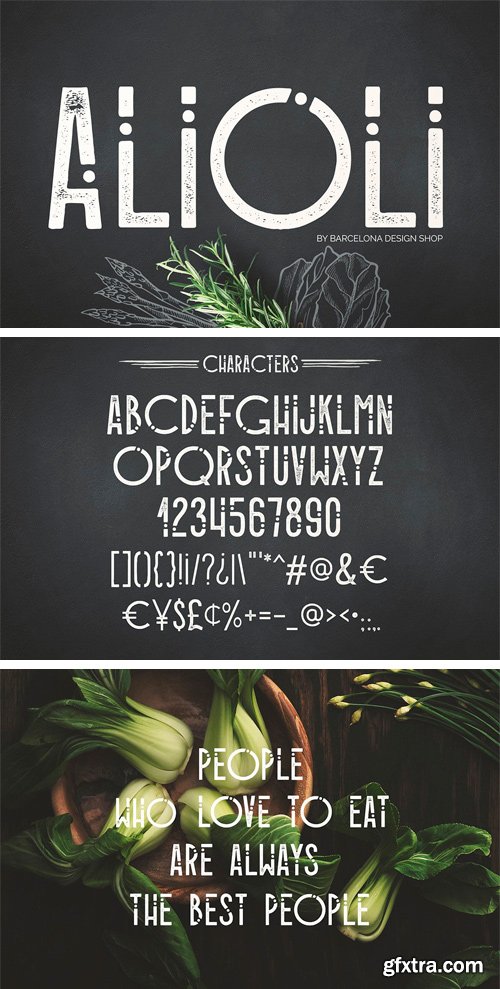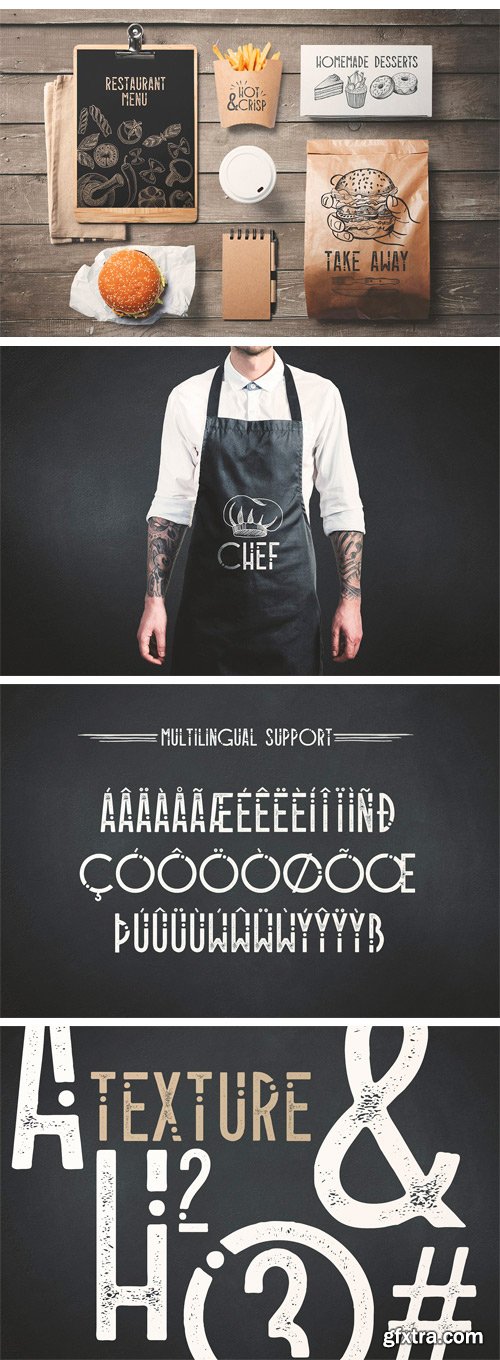
CM - Alioli - Texture Geometric Font 2113418
Alioli - a geometric sans serif font consisting of uppercase and lowercase letters, punctuation and numbers. Multilingual support, test non-english characters in the box below.